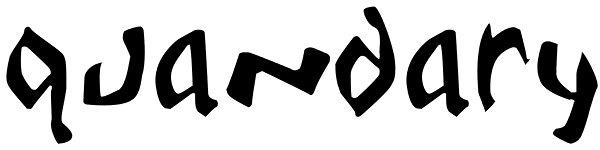
Quandary
The Quandary Font is created for a horror theme in use with an illustrated book ‘The Predicament’ by Edgar Allan Poe. It is designed as a highly expressive face to accentuate a sense of mystery and the macabre. A comparatively more carefree and...